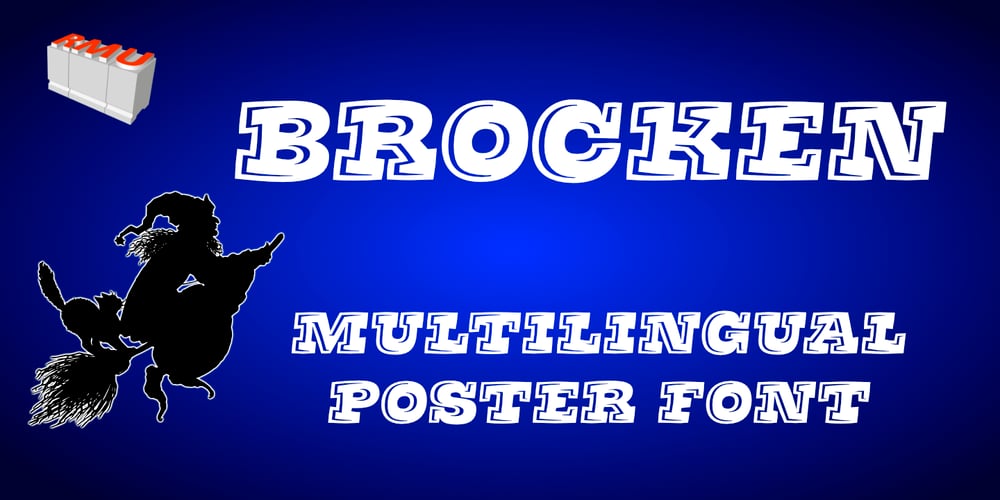
Brocken Font Family was designed by Ralph M. Unger and published by RMU. Brocken contains 1 styles and family package options. Good ideas never will die. Based on the concepts of former Leipzig student Volker Küster in the mid-1960s, I redrew and digitized the basics and extended them into a complete multilingual caps-only poster font which I named “Brocken”. Its letter-forms strongly remind me of the mighty rocks covering the highest peak, Brocken, in Northern Germany.